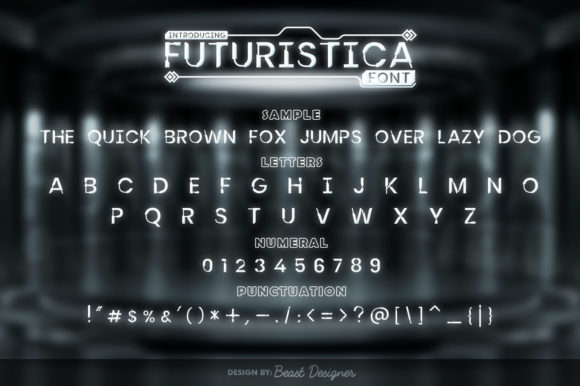
Futuristica Font: Elevate Your Designs with a Trendy and Evolved Display Font
In the world of typography, fonts play a crucial role in conveying the tone and aesthetic of a design. For designers and crafters looking to add a touch of modernity and sophistication to their projects, Futuristica Font is an excellent choice. This trendy and incredibly evolved display font is designed to make a statement, and with its unique features, it’s sure to elevate your designs to the next level.
The Futuristica Advantage
Futuristica Font boasts a sleek and futuristic design that’s perfect for a wide range of applications, from branding and advertising to packaging and digital media. Its clean lines, geometric shapes, and carefully crafted letterforms create a visually stunning effect that’s sure to grab attention. Whether you’re working on a logo, headline, or title, Futuristica Font is the perfect choice for designers who want to add a touch of elegance and sophistication to their work.
Key Features of Futuristica Font
- Unique and Modern Design: Futuristica Font features a distinctive and contemporary design that’s perfect for designers looking to create a lasting impression.
- Highly Versatile: This display font is suitable for a wide range of applications, from digital media to print materials.
- Easily Readable: Despite its futuristic design, Futuristica Font is highly legible, making it perfect for use in headlines, titles, and short paragraphs.
- Extensive Language Support: Futuristica Font supports a wide range of languages, making it an excellent choice for designers working on international projects.
How to Use Futuristica Font in Your Designs
- Pair it with Other Fonts: Futuristica Font pairs well with a variety of other fonts, making it easy to create visually appealing combinations.
- Experiment with Colors and Textures: The versatility of Futuristica Font allows you to experiment with different colors and textures to create a unique look.
- Use it for Headlines and Titles: Futuristica Font is perfect for use in headlines and titles, where its bold and futuristic design can make a lasting impression.
Why Choose Futuristica Font?
- Unparalleled Quality: Futuristica Font is designed to the highest standards, ensuring a level of quality that’s unmatched in the industry.
- Trendy and Modern: This font is designed to keep up with the latest design trends, ensuring your projects look fresh and modern.
In conclusion, Futuristica Font is a trendy and incredibly evolved display font that’s perfect for designers and crafters looking to elevate their designs. With its unique features, versatility, and exceptional quality, it’s an excellent choice for a wide range of applications. Whether you’re working on a branding project, creating a logo, or simply looking for a font to add a touch of modernity to your designs, Futuristica Font is sure to impress. So why wait? Add Futuristica Font to your design arsenal today and experience the difference for yourself.